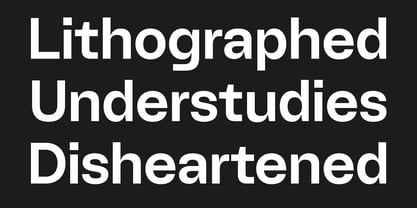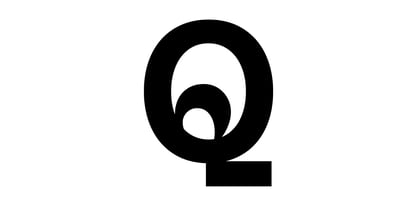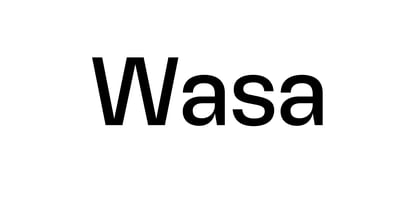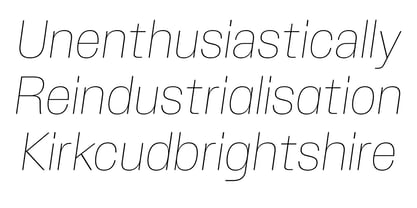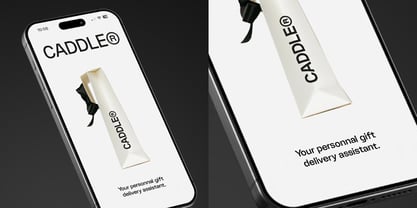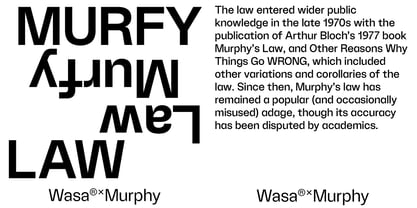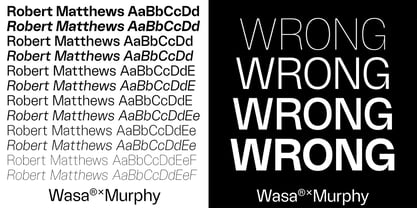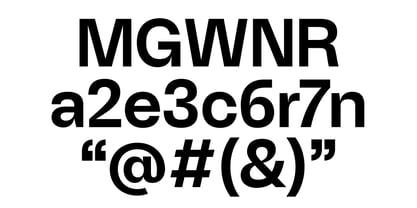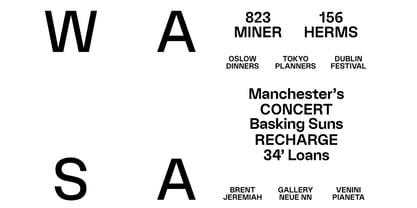
Wasa
by Pizzatypefaces
The Wasa Font Family was designed by Adrien Midzic and published by Pizzatypefaces. Wasa contains 12 styles and family package options. More about this family
Wasa Typeface is a versatile sans-serif font family that brings a unique flair to both bold and delicate layouts, suitable for print and digital applications. With at least 7 weights ranging from Thin to Black, including their corresponding Italics, Wasa offers flexibility for various design needs. This font allows for seamless designs across the typographic landscape. Its quirky details, particularly in the transitions from circular bowls to straight strokes, infuse dynamism and personality while maintaining a balanced tone. The distinctive letters “Q”, “a”, “g”, and the figures “1”, “6”, “9” showcase the aesthetic characteristics that make Wasa truly original, making it an excellent choice for branding, editorial, and web design.
Designers: Adrien Midzic
Current Foundry: Pizzatypefaces